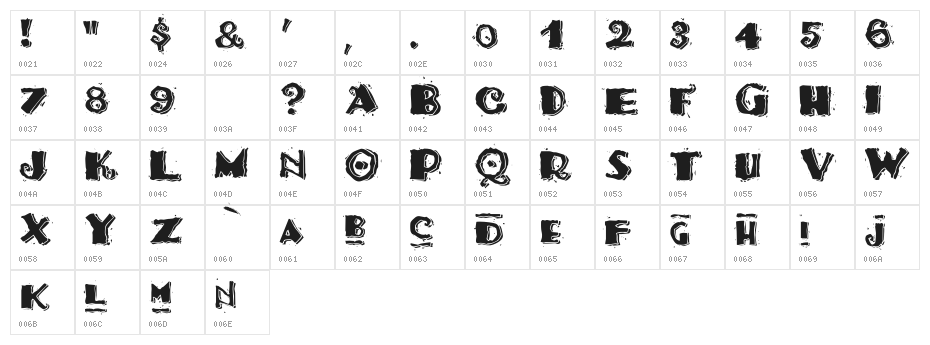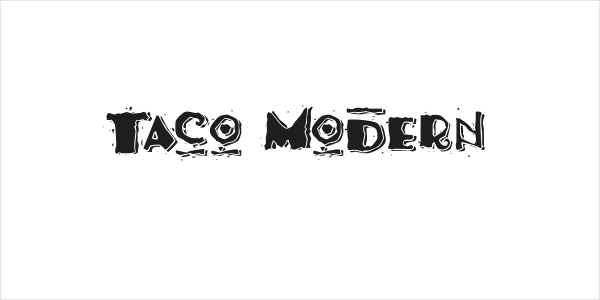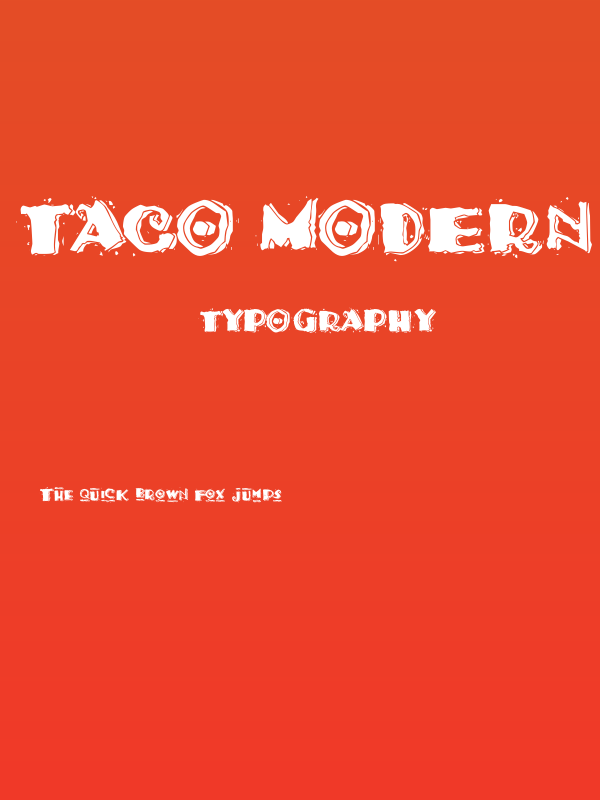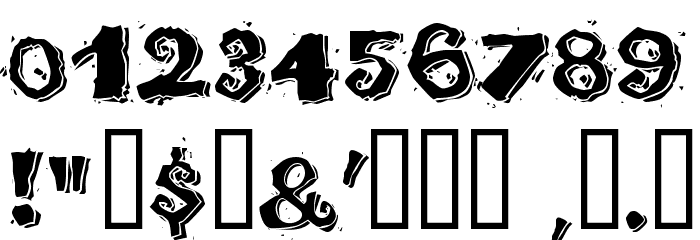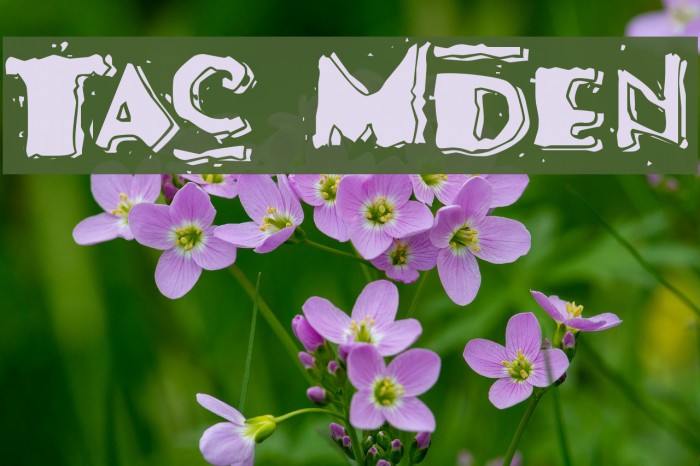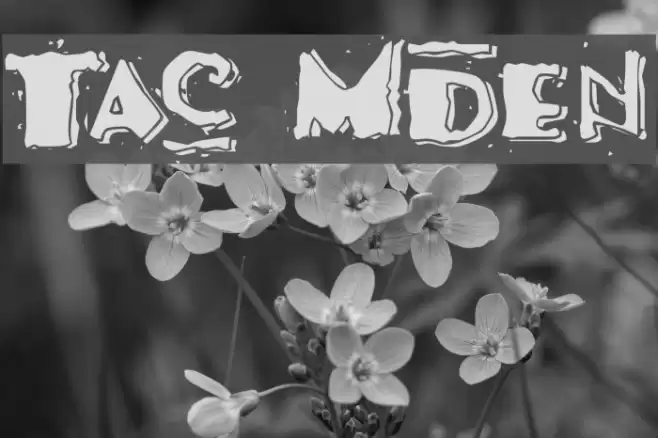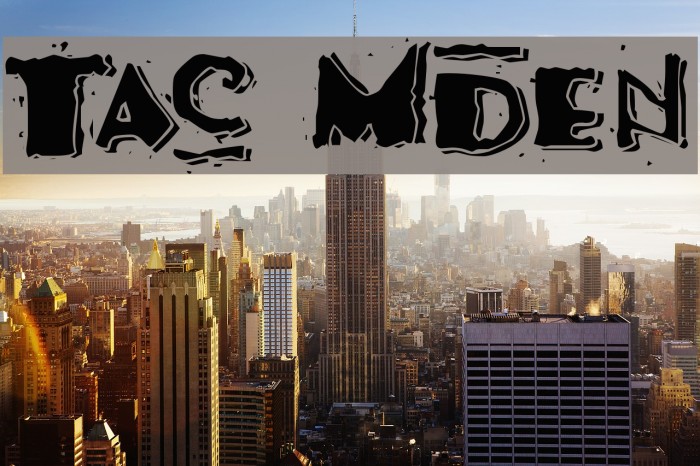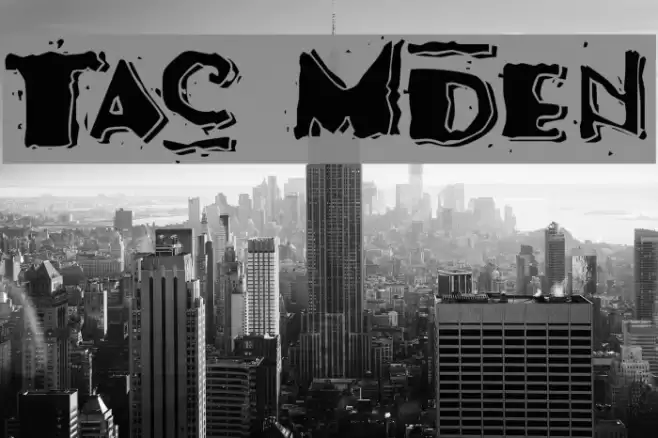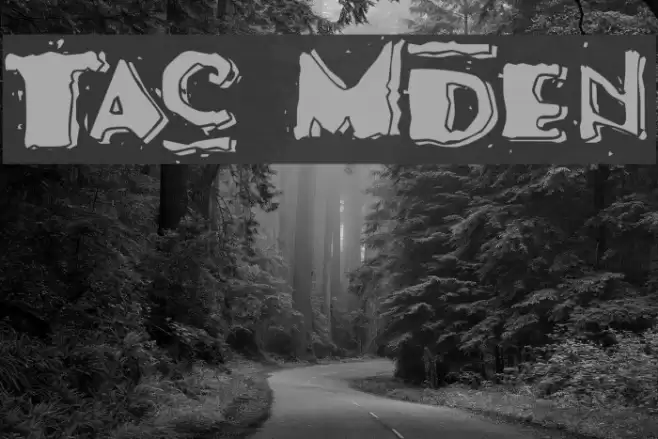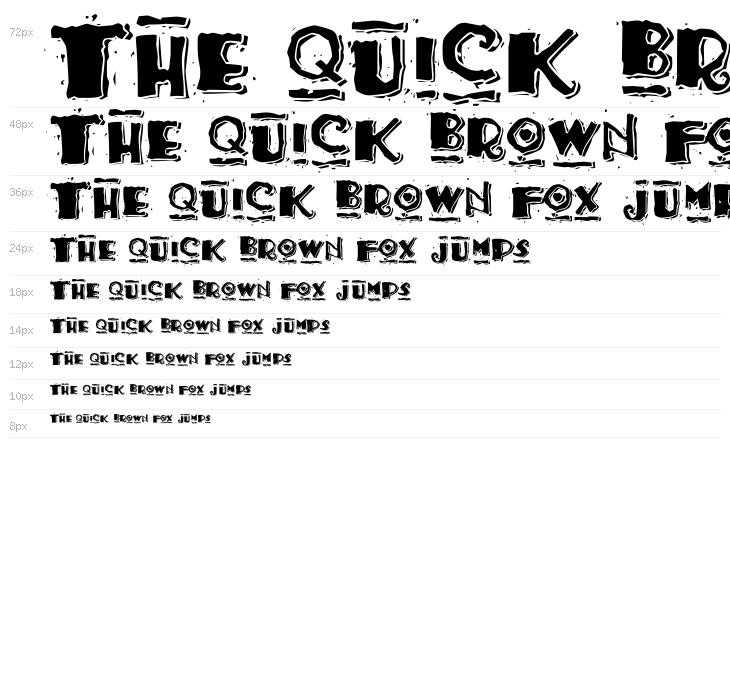
Taco Modern Font
| Projetos propostos | Ideal for posters, album covers, branding for edgy or alternative products, and any design needing a strong, impactful typeface. |